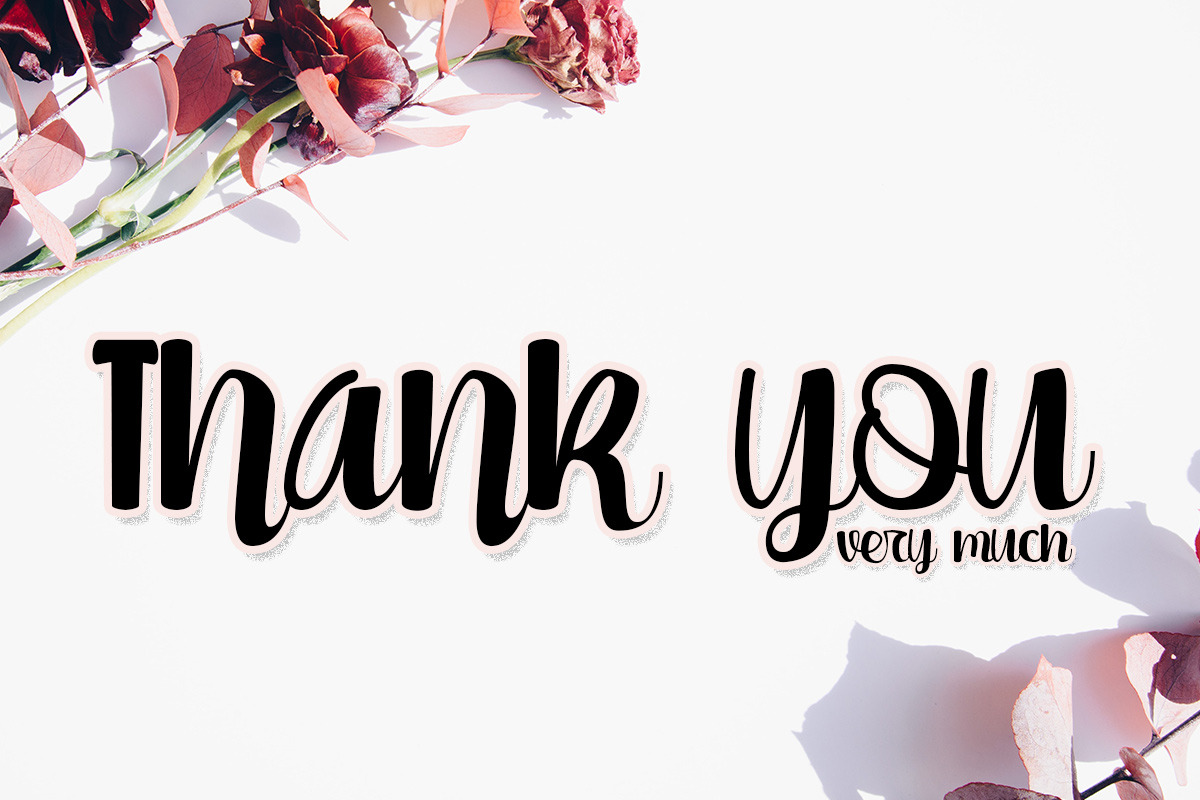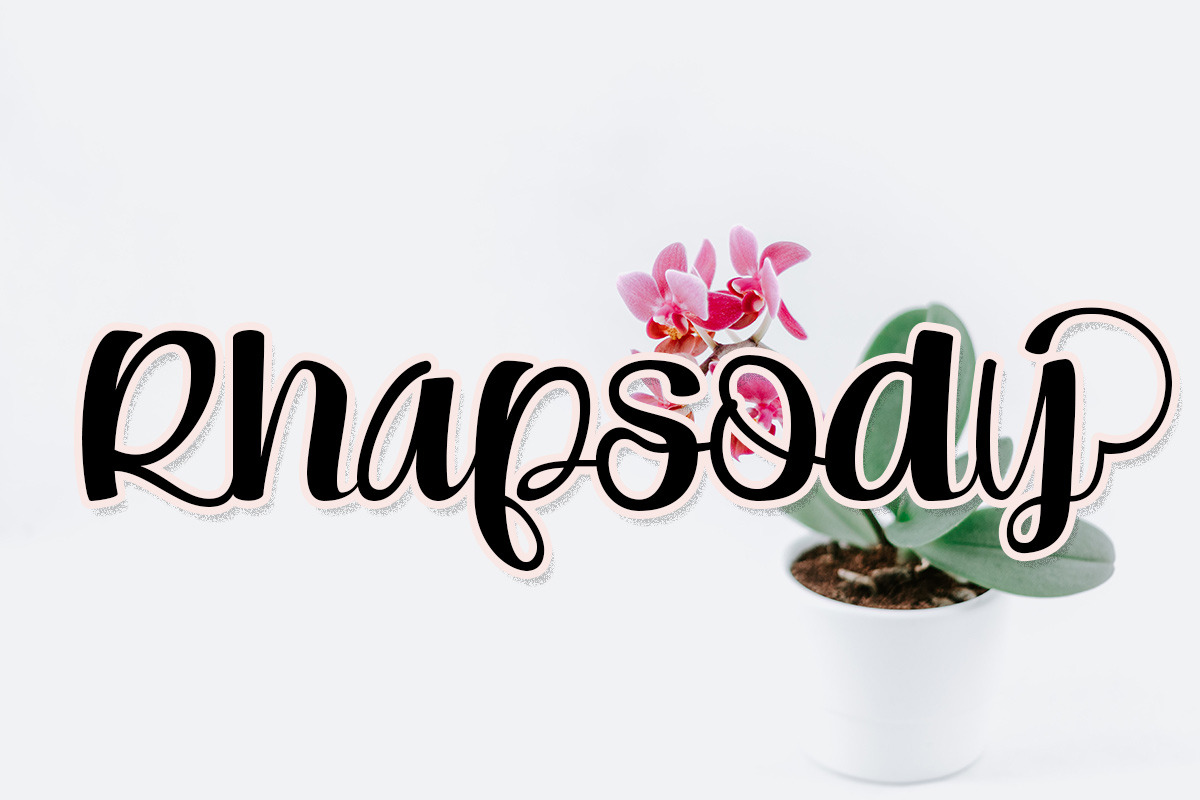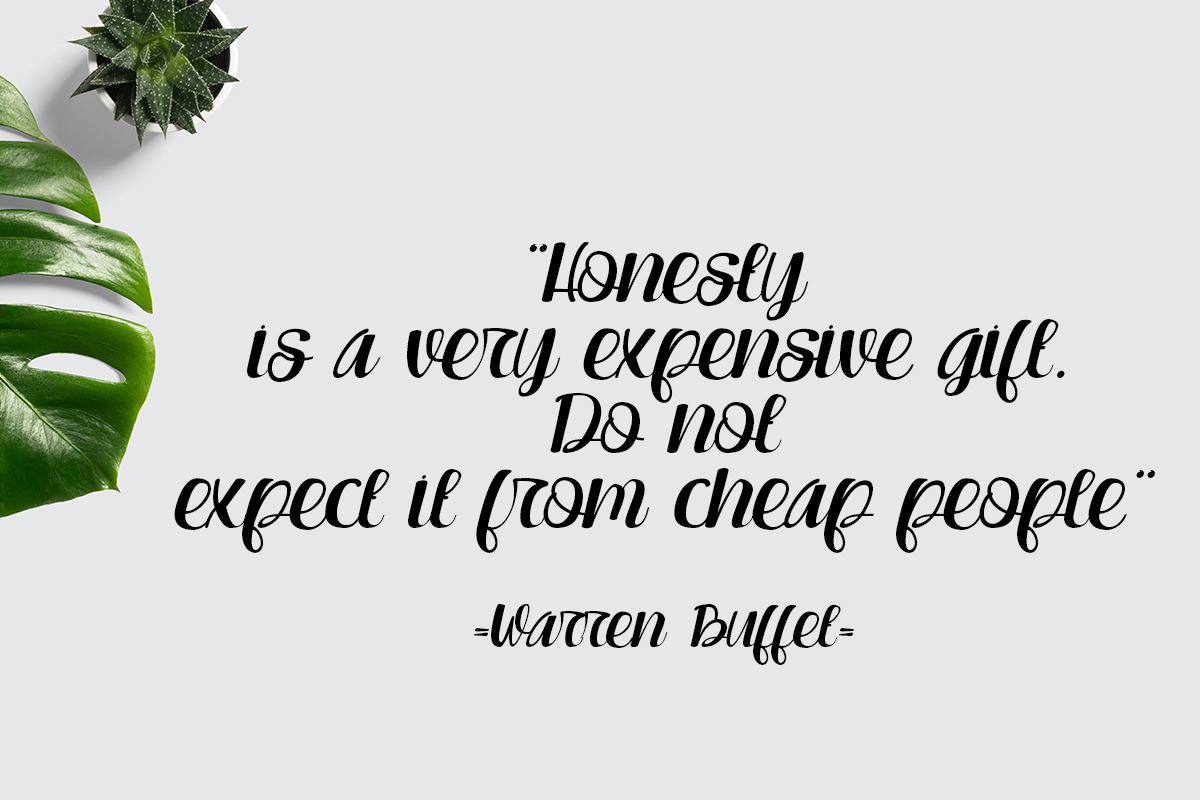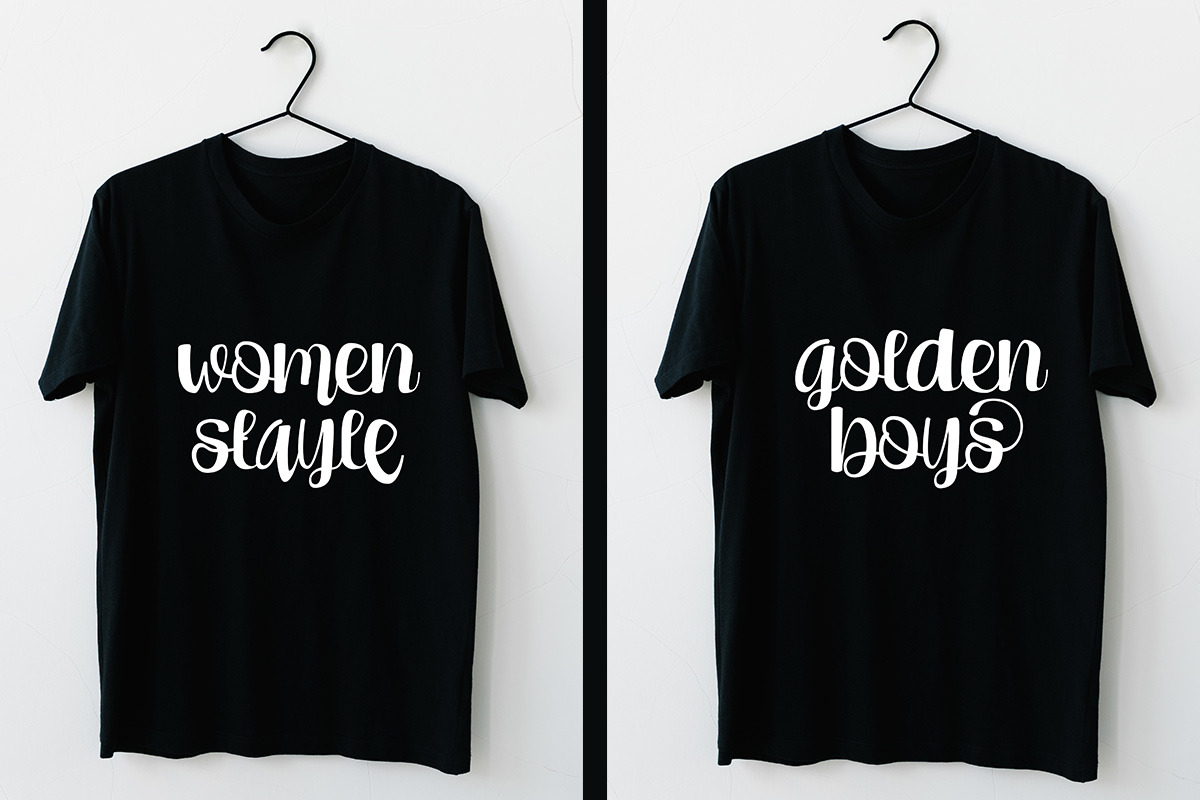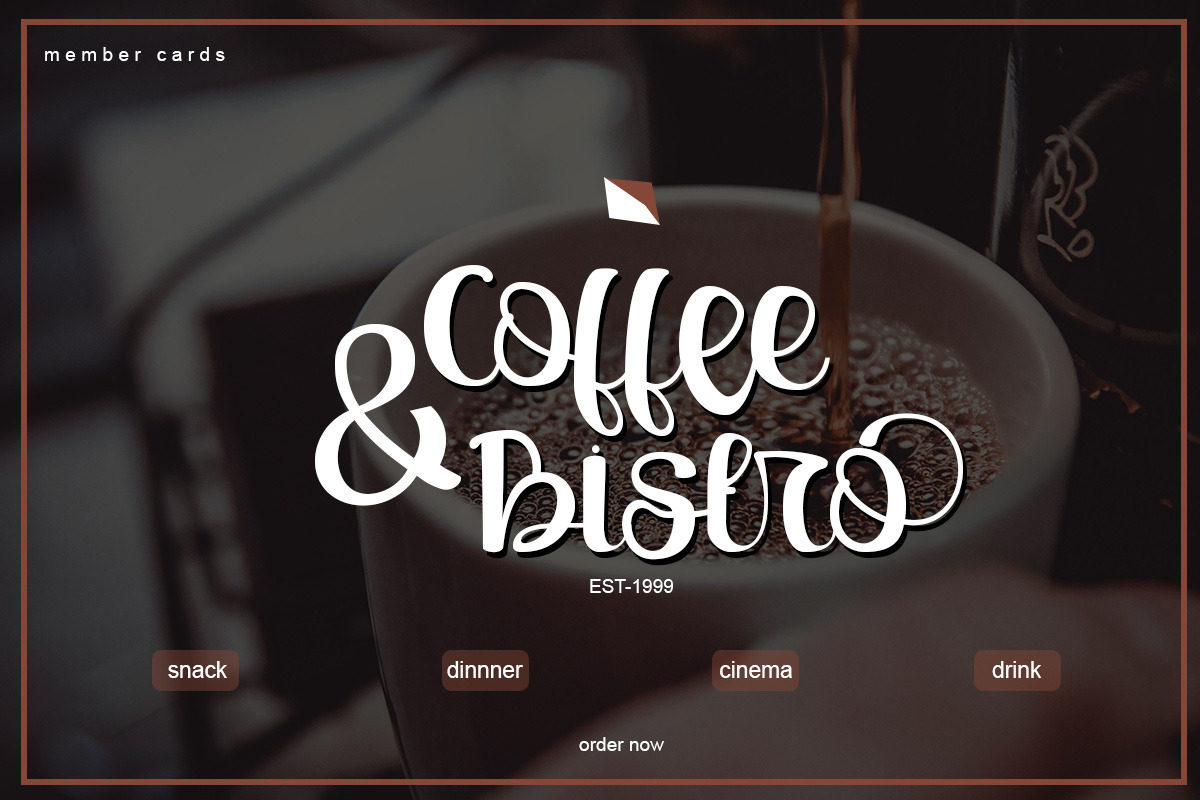
Homelands
Homelands coming from its predecessor, this time with a thick nuance but still the same, this greatly affects anyone who reads it, because there is a very strong nuance of calligraphy
Homelands This font will give full style on every side and make it romantic yet stylish make sure this design will blow your mind include